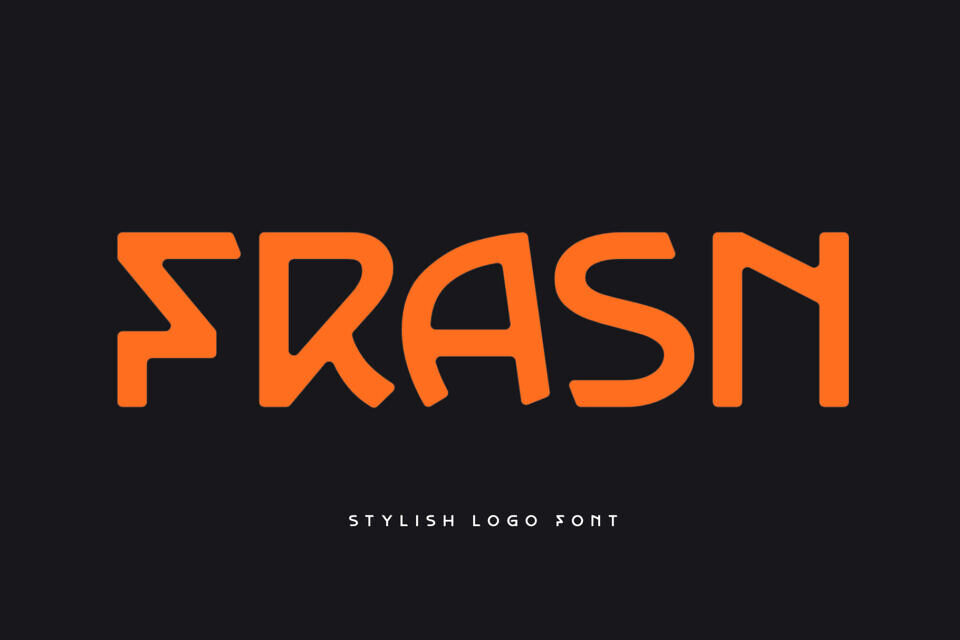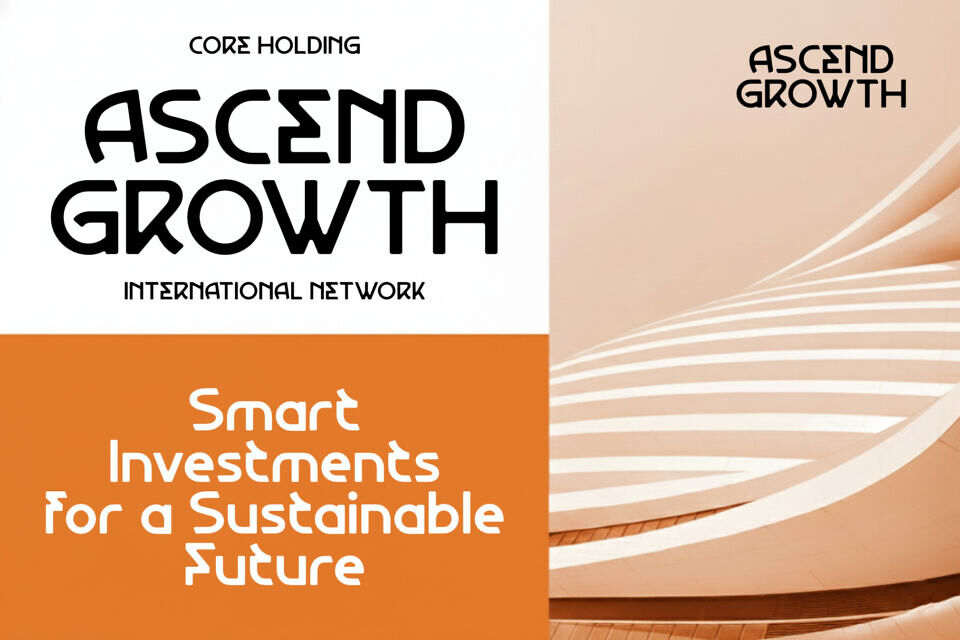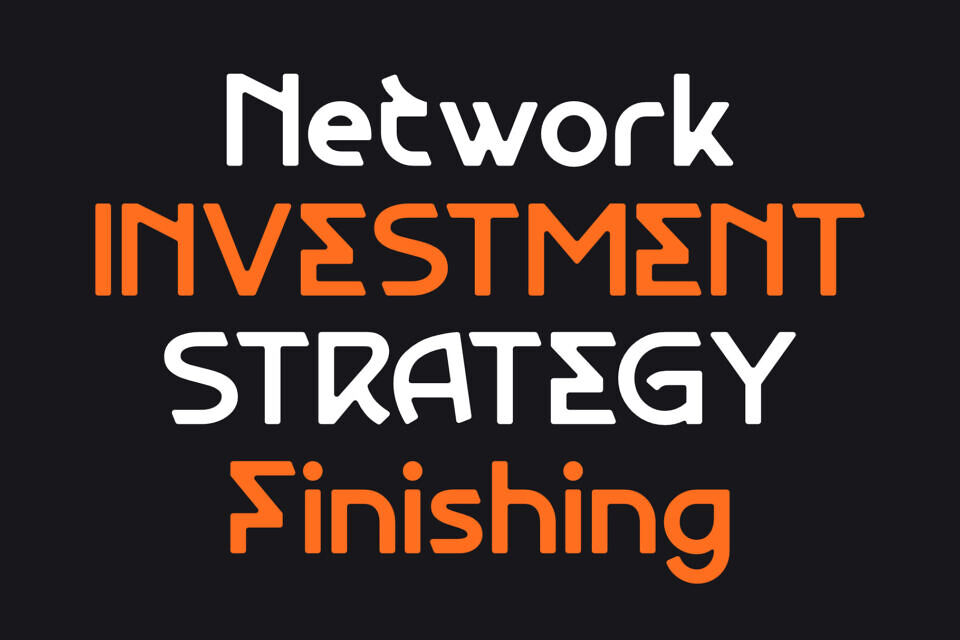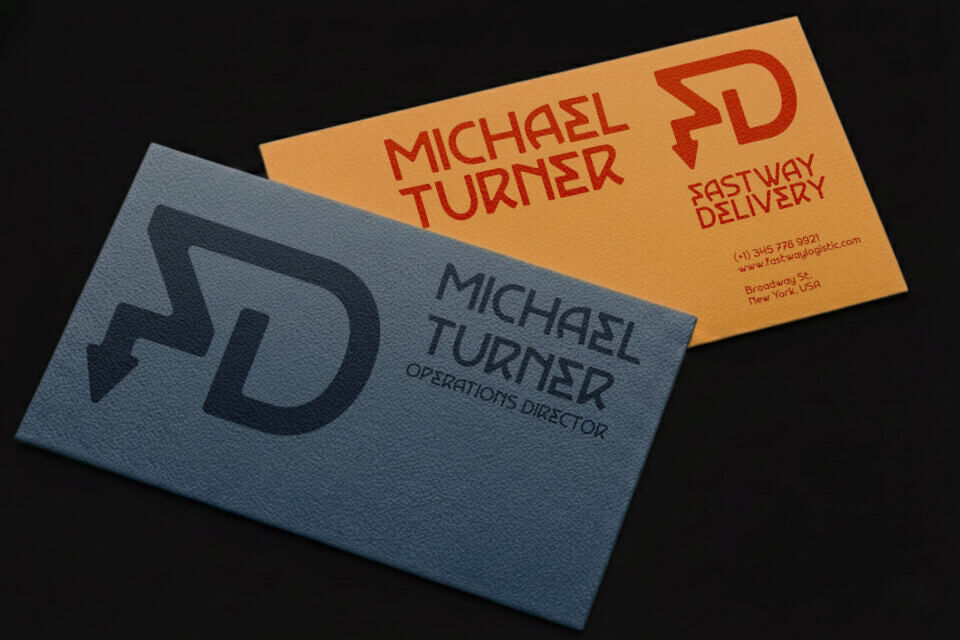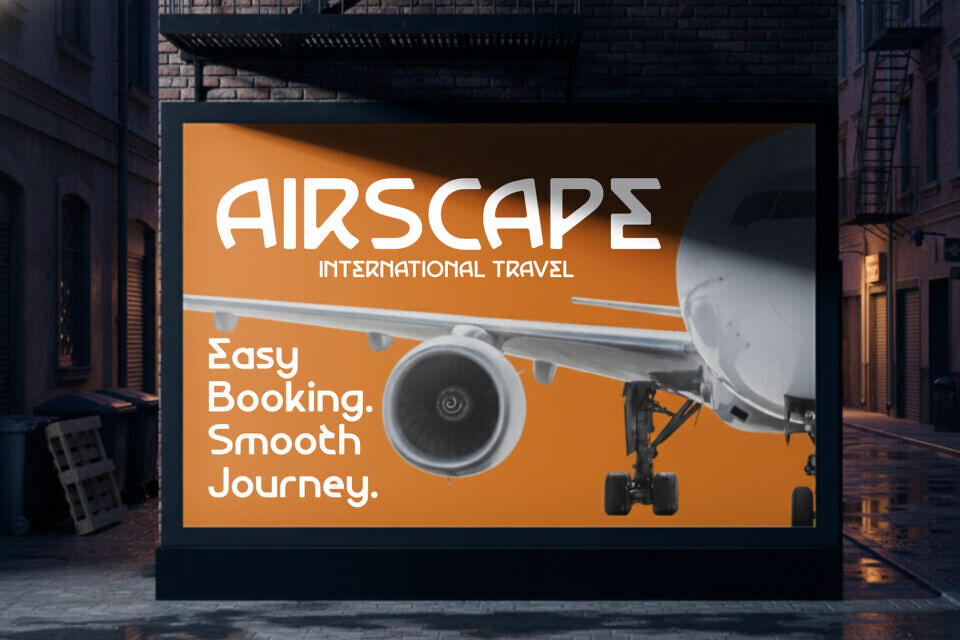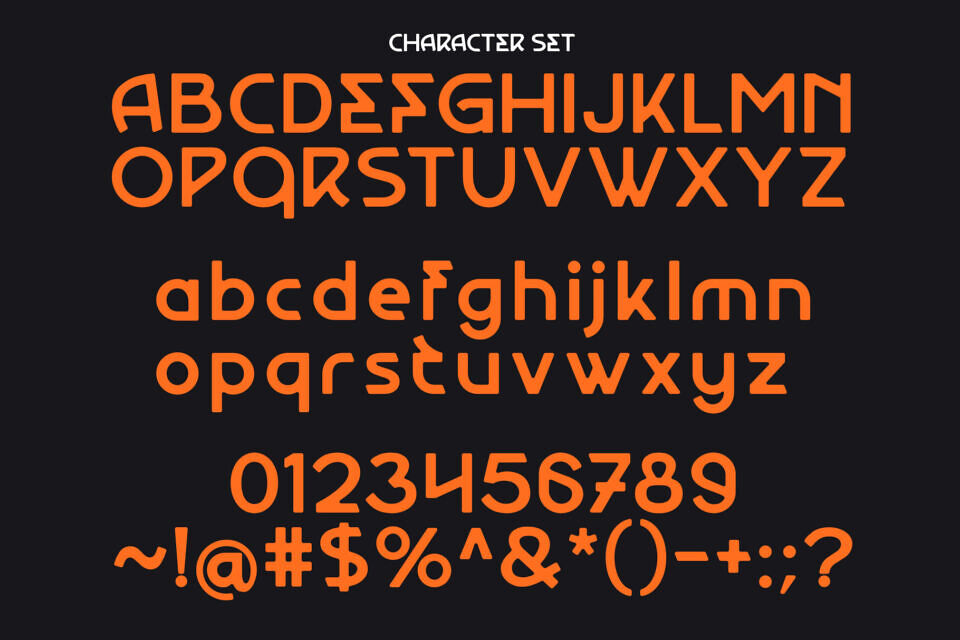
Frasn Font
Frasn is a modern and stylish logo font designed to deliver a bold, confident, and contemporary visual identity. With its smooth curves, unique letter shapes, and clean geometry, Frasn is perfect for brands that want to stand out while maintaining a professional and minimal aesthetic.
This font is crafted specifically for logos, branding, headlines, posters, fashion labels, technology brands, and creative projects that require a strong and memorable typographic presence. Its distinctive character design makes every word look custom and eye-catching.